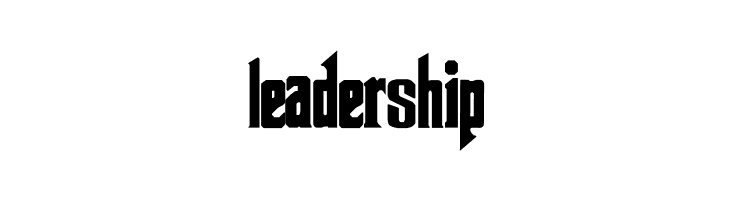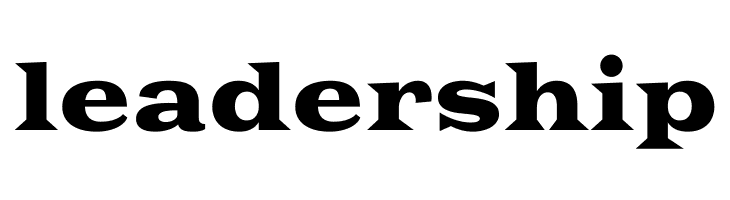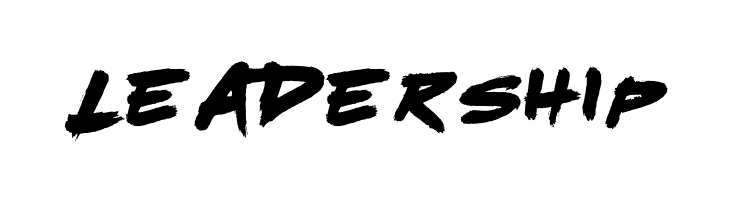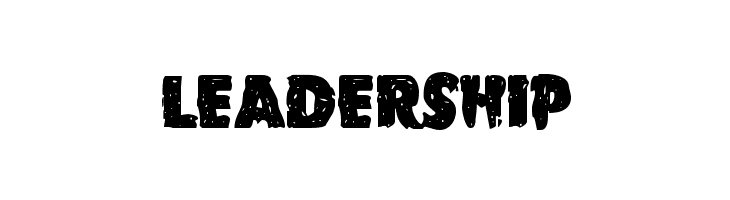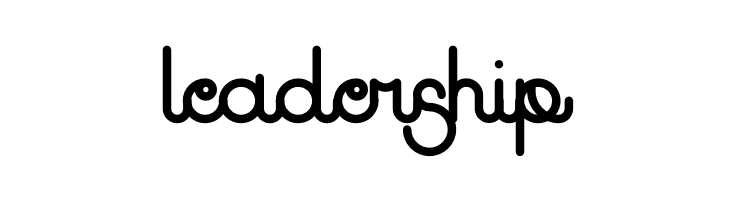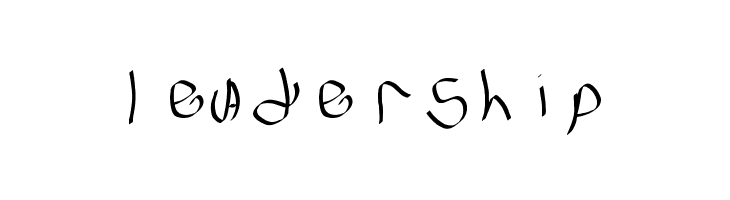
A bold, textured font with a playful and distressed appearance.
A bold, playful 3D font with a whimsical, irregular outline and scattered dot details.
A bold, playful font with a leaning, distressed style and quirky personality.
A bold, textured font with a playful and dynamic style.
A bold, textured font with a playful, graffiti-like style.
A bold, textured font with a playful and rugged design.
A playful and dynamic handwritten font with fluid strokes and a casual style.
A bold, brush-style font with dynamic and expressive characters.
A bold, strong font with thick strokes and a commanding presence.
A bold, jagged font with an eerie, shadow-like design.
A whimsical collection of goblin illustrations, each with unique character and style.
A geometric, abstract font with futuristic and robotic aesthetics.
A bold, distressed font with a hand-painted, textured appearance.
A playful, handwritten-style font with rounded, consistent strokes.
A playful, handwritten-style font with rounded, informal characters.
A bold, industrial-style font with high contrast and angular edges.
A whimsical and artistic script font with flowing, cursive letters.
A bold, playful font with rounded characters and a whimsical flair.
A bold, dynamic brush script font with energetic strokes and a modern flair.
A dynamic, brush-style font with expressive strokes and artistic flair.
A bold, gothic-inspired font with sharp, angular edges and dramatic strokes.
A bold, angular font with high contrast and geometric style.
A bold, angular font with a dynamic, modern-retro style.
A creative and artistic handwritten font with dynamic strokes.
A modern, geometric sans-serif font with clean lines and a friendly appearance.
A playful and casual handwritten font with smooth, rounded letterforms.